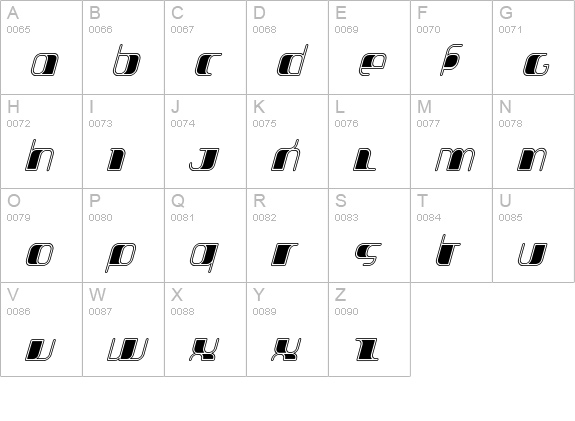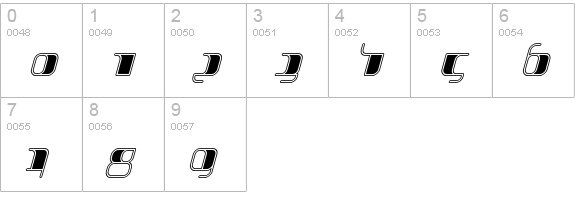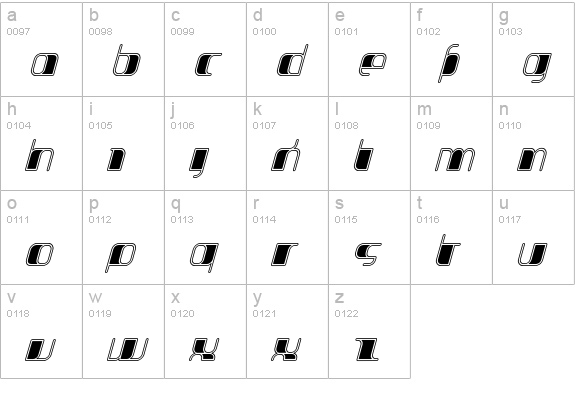
Introducing Jakone-InlineItalic, a striking and modern font that effortlessly combines elegance with a touch of playfulness. This unique typeface is perfect for creative projects, branding, invitations, and more. With its stylish inline design and beautifully slanted italics, Jakone-InlineItalic adds a touch of sophistication to any design. What sets Jakone-InlineItalic apart is its versatility. Whether you're designing a logo, poster, or website, this font will surely make a lasting impression. Each letter is meticulously crafted, showcasing the designer's attention to detail and commitment to excellence. One of the most exciting aspects of Jakone-InlineItalic is that it is free! Yes, you read that right. This incredible font is freely available to download at FontsMarket.com. This means that you can elevate your designs without breaking the bank. Say goodbye to costly licensing fees and hello to creative freedom. With its bold and eye-catching appearance, Jakone-InlineItalic effortlessly captures attention and stands out from the crowd. Its clean lines and exquisite curves make it easy to read, ensuring that your message is conveyed clearly and effectively. Whether you're a professional designer or an amateur enthusiast, Jakone-InlineItalic is a must-have font in your collection. Its wide range of weights and styles allows for endless possibilities, making it suitable for various design projects. So why wait? Download Jakone-InlineItalic today from FontsMarket.com and let your creativity run wild. Unleash the power of this stunning font and take your designs to new heights. With its combination of elegance, playfulness, and the fact that it's freely available, Jakone-InlineItalic is a font that you simply can't miss out on.